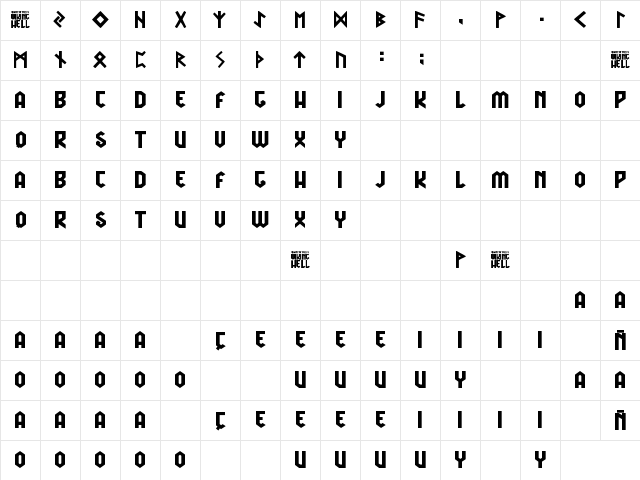
Viking Hell Regular Free Font
Viking Hell Regular
Designer: Woodcutter Manero
Design Context for Viking Hell
Viking Hell is a composed and adaptable typeface that performs quietly and consistently across a wide range of design contexts.